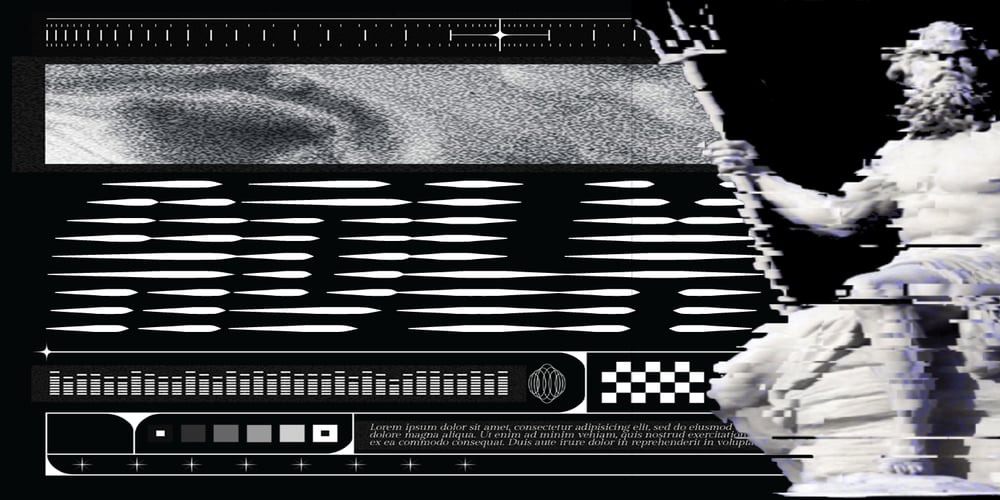
Adlm
Adlm font
Adlm Font Family was designed by Andrii Shevchyk and published by Andfonts. Adlm contains 1 styles and family package options. Abxr is a cool, robotic styled display font. This font is ideal for logosnames and pretty much anything else that requires a unique touch. My opinion it can works perfectly in music, sport and art industry.